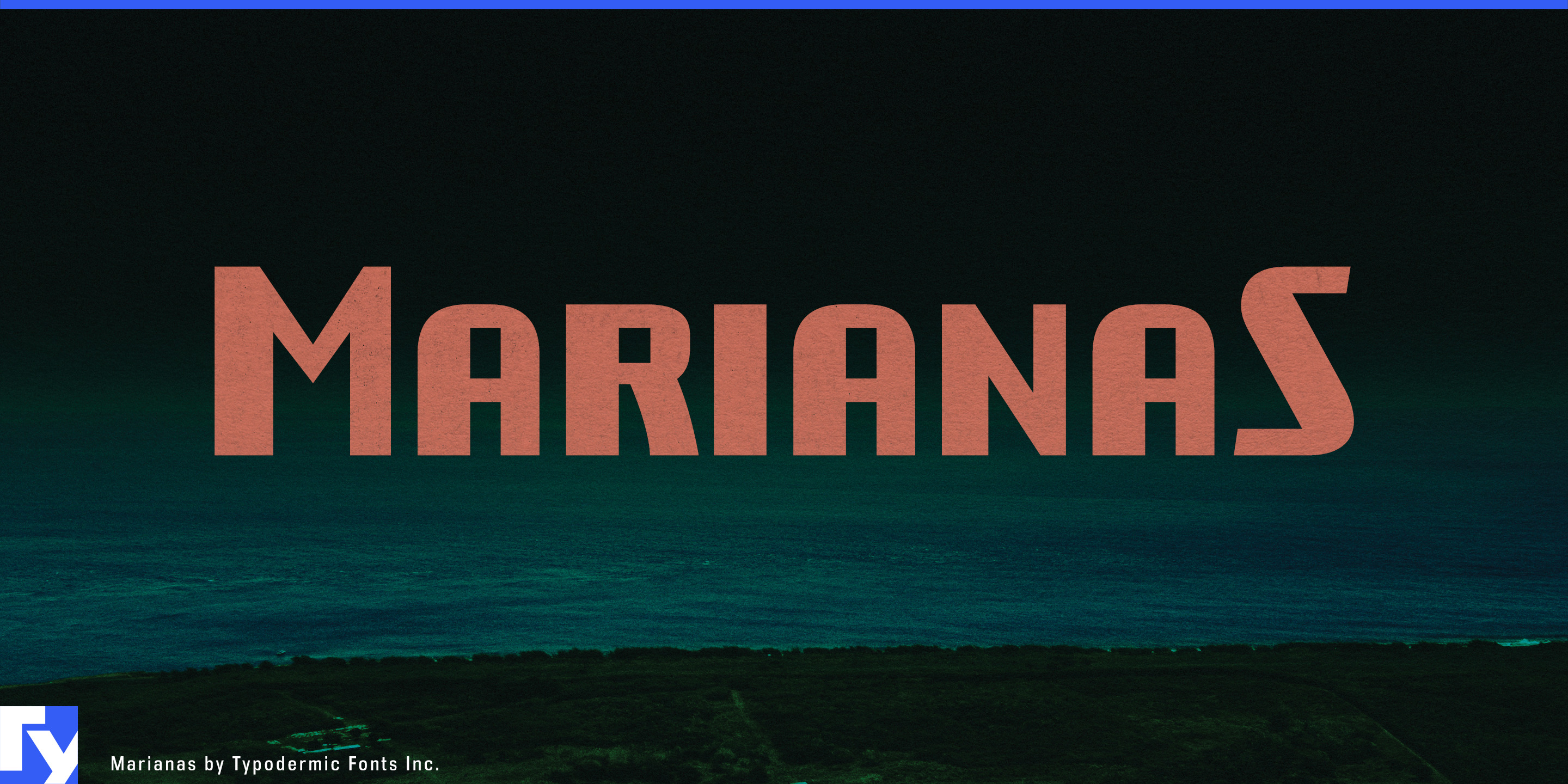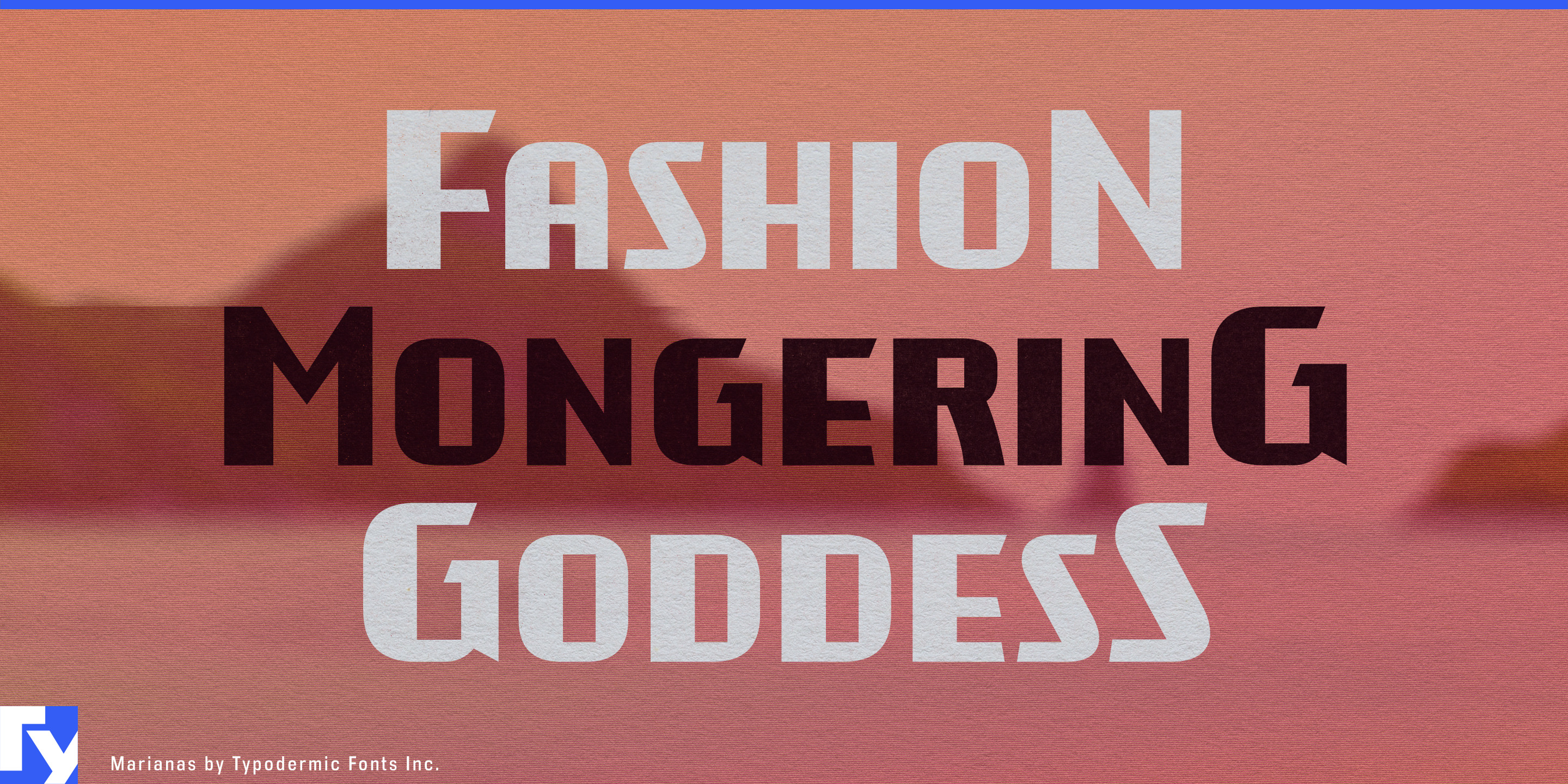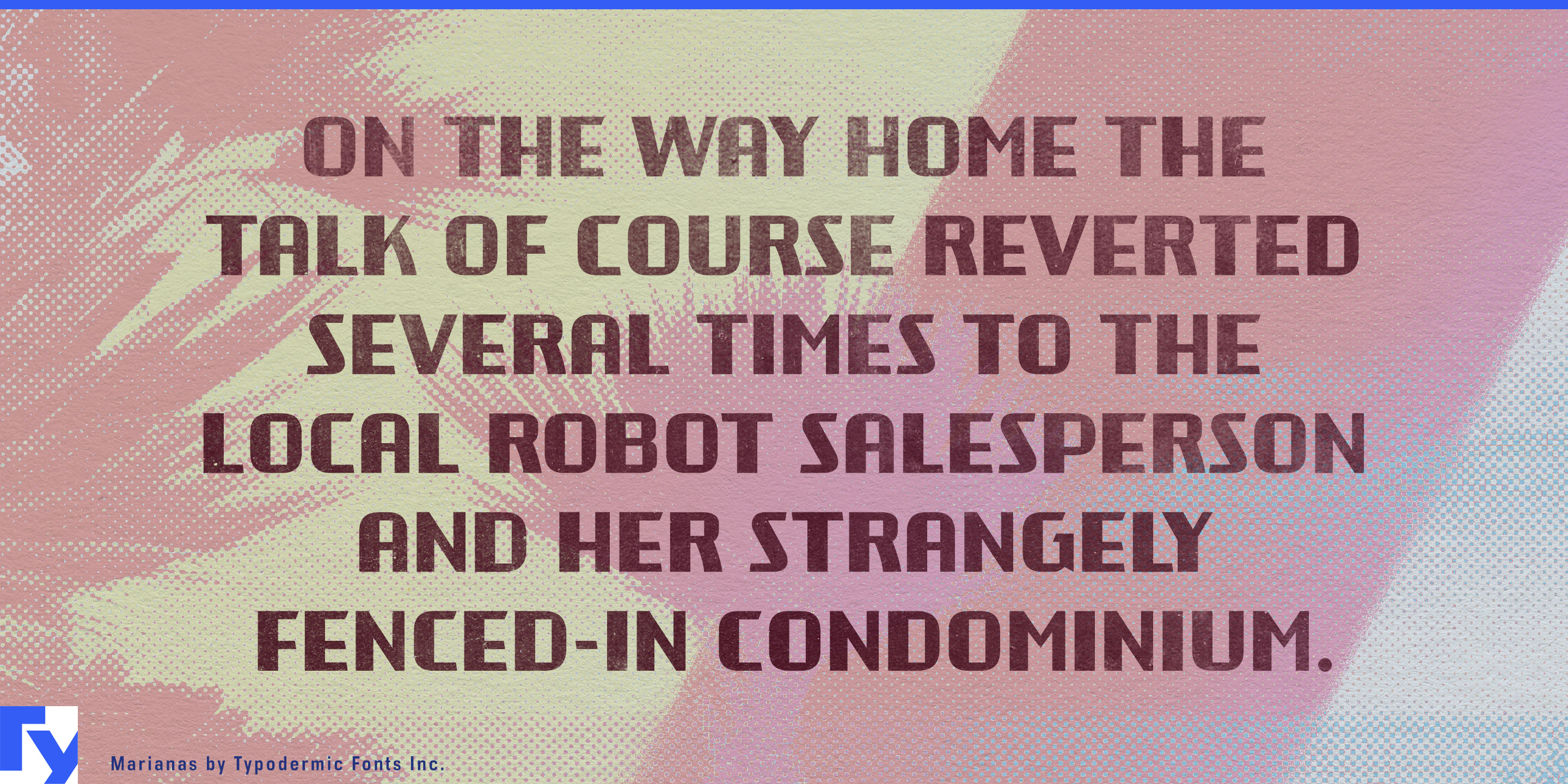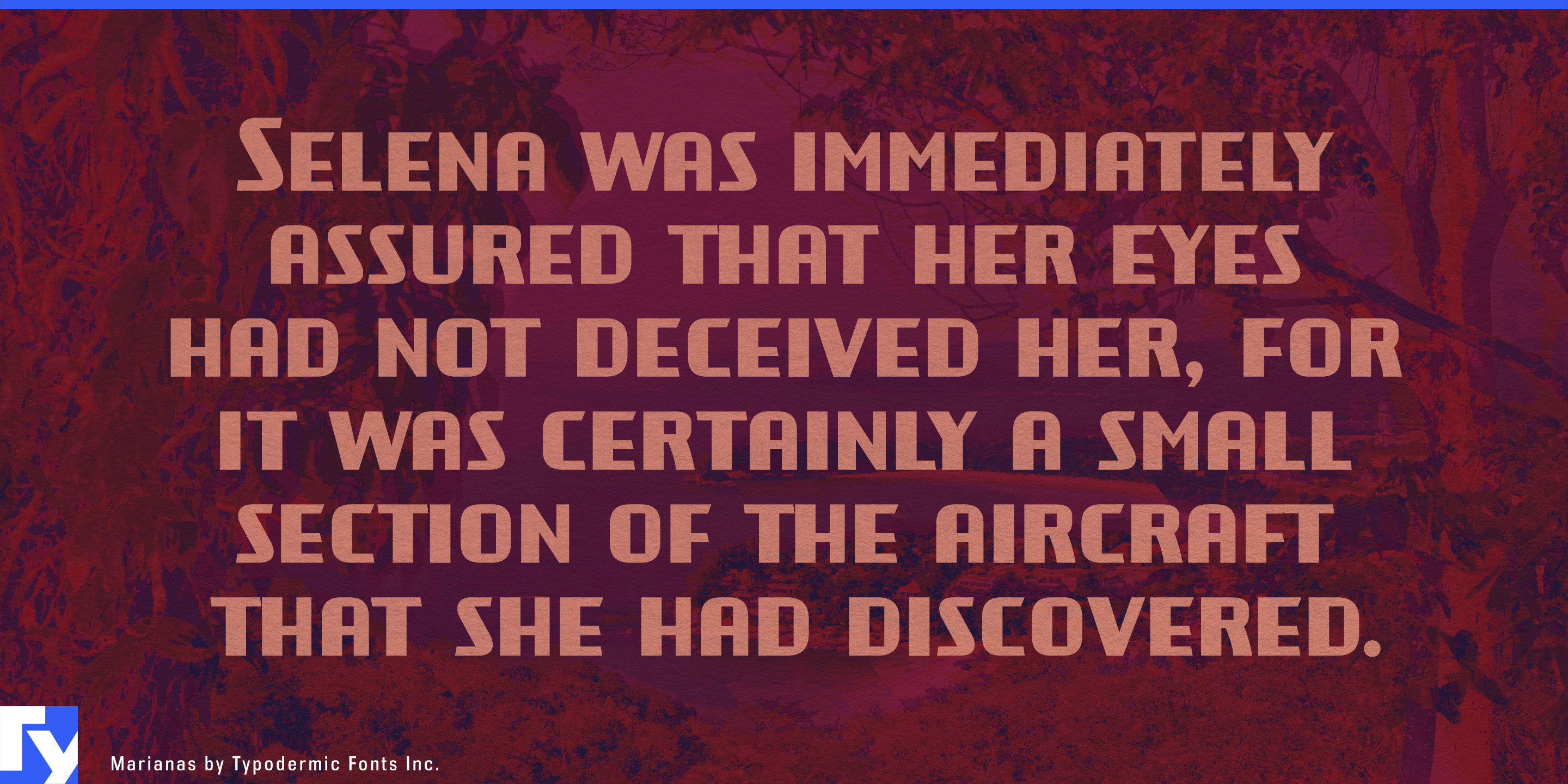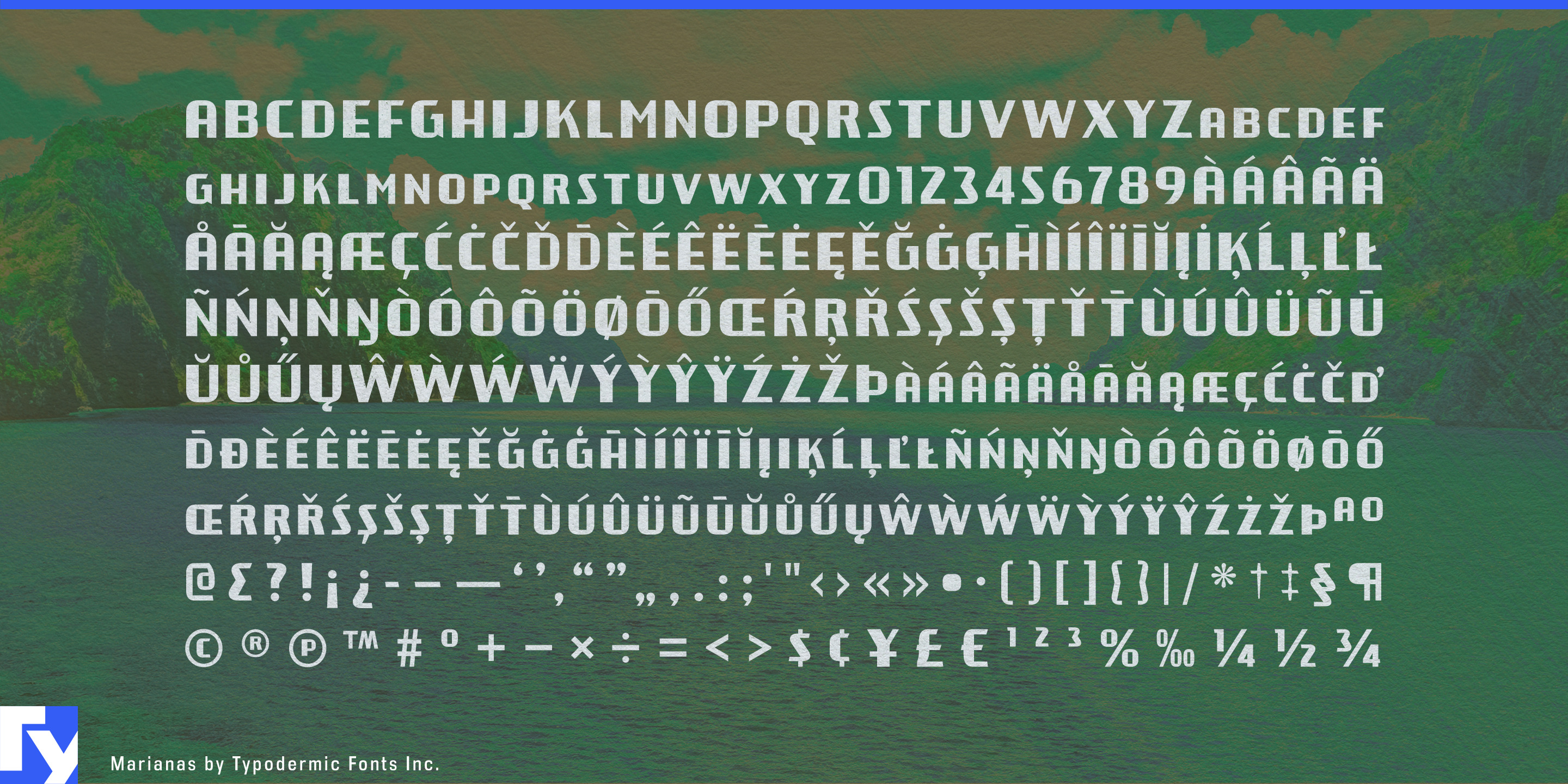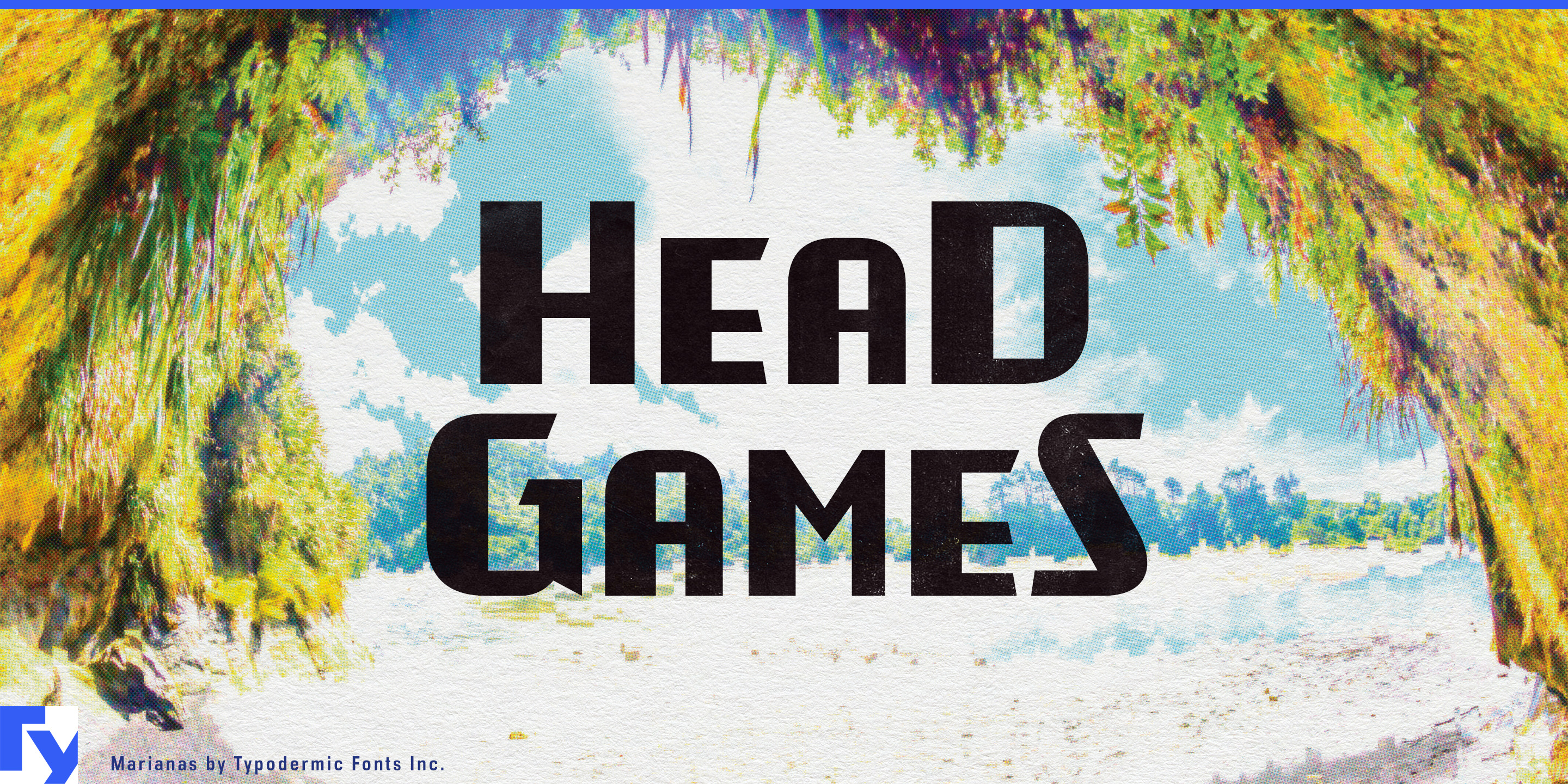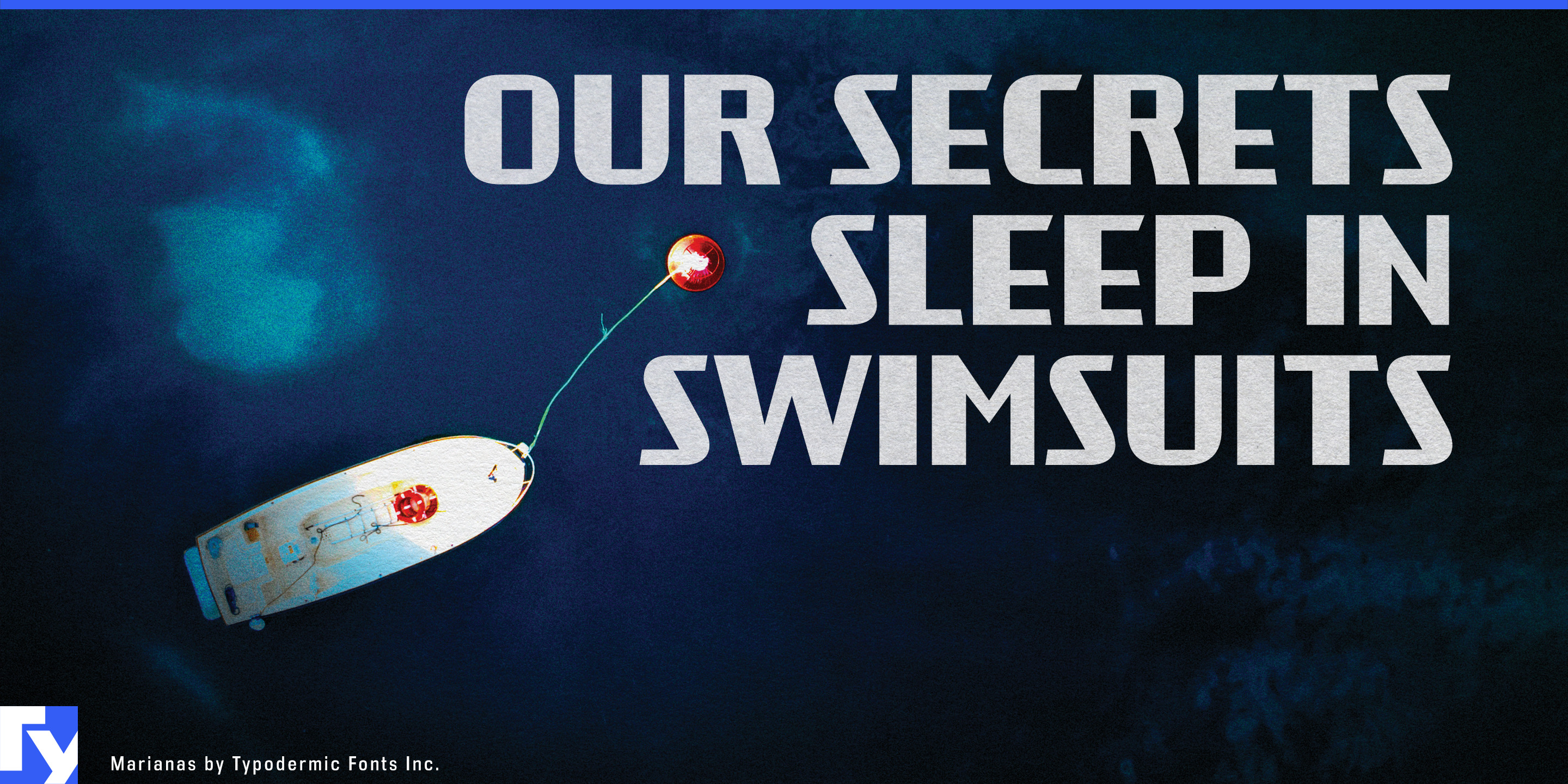
Marianas
Marianas is where horizon lines meet human design—a bold geometric typeface built for brands that live between the ocean and the skyline. Its squared forms and decisive diagonals echo ferry docks, airstrips, and coastal architecture, while its flowing curves hint at wind patterns and shifting tides.
This is a font for destinations and experiences that promise both escape and precision. Marianas feels at home on a boutique resort’s welcome sign, a scuba tour brochure, a craft rum label, or an upscale island ferry schedule. It works as easily in the turquoise glow of a travel app as it does on the textured pages of a lifestyle magazine. Clean geometry gives it the authority needed for wayfinding and corporate branding, while distinctive letter shapes ensure memorability. Whether you’re guiding visitors through a tropical harbor, promoting an ocean sports festival, or shaping the identity of a waterfront café, Marianas delivers clarity with character.
With wide language support and a design that’s confident without feeling cold, Marianas adapts to global campaigns while retaining its sense of place. Set your course—Marianas will get you there.